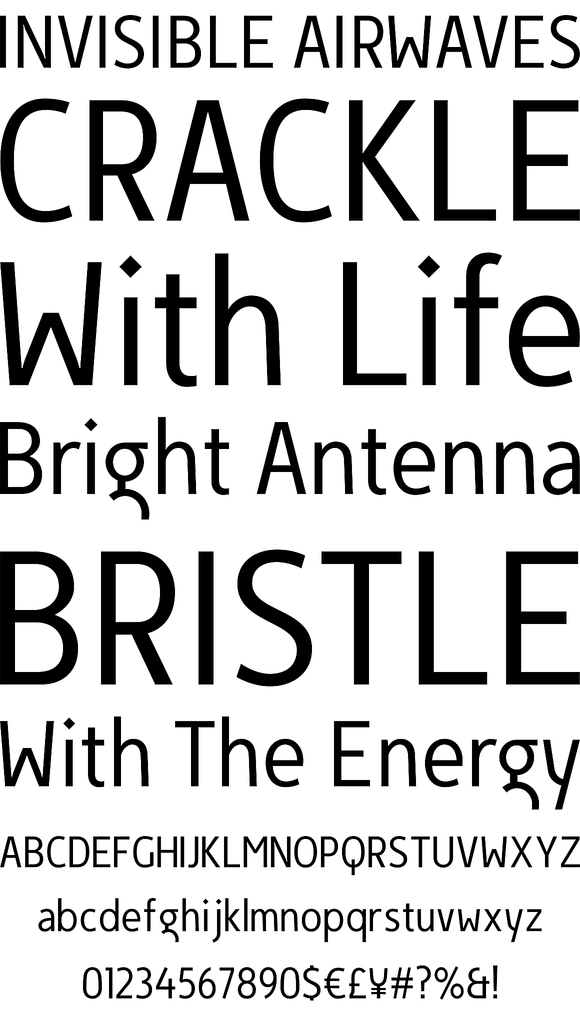
Egon Condensed is a geometric sans serif typeface family built in nine styles - light, regular, bold weights in roman and italic respectably, plus three alternatives in roman.
Egon Condensed is a geometric sans serif typeface family built in nine styles - light, regular, bold weights in roman and italic respectably, plus three alternatives in roman. Egon Sans Condensed is an extension of Egon family - Egon Slab Serif (2008) and Egon Sans Serif (2010). Egon Sans is released as OpenType single master with a Western CP1252 character set.